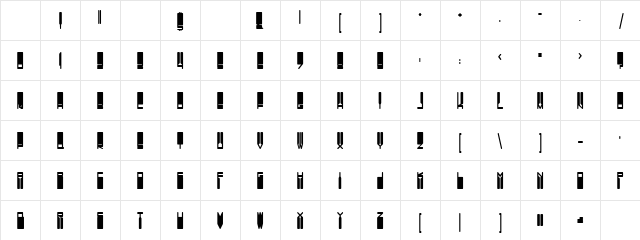
Complete Vanishing Girl Regular glyph index. Displaying only characters natively supported by Vanishing Girl Regular font.
Vanishing Girl is a composed and adaptable typeface that performs quietly and consistently across a wide range of design contexts.